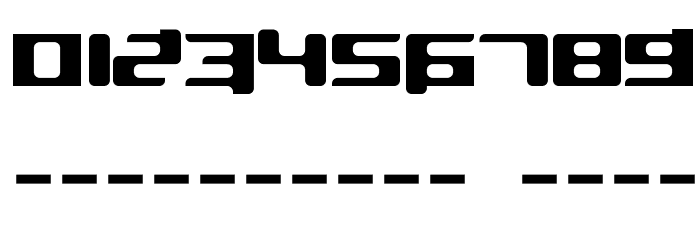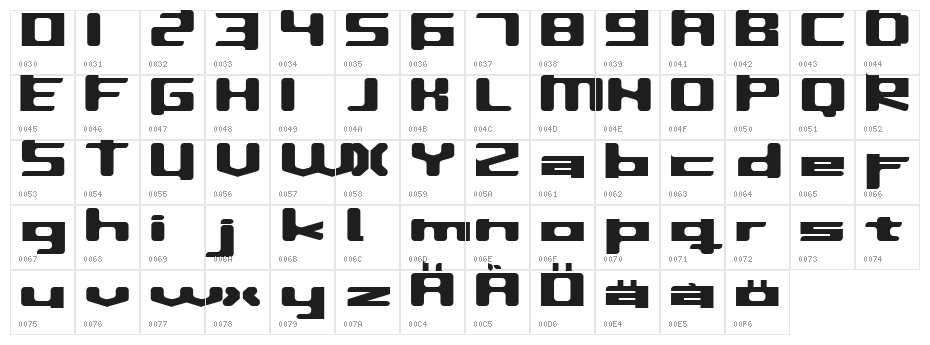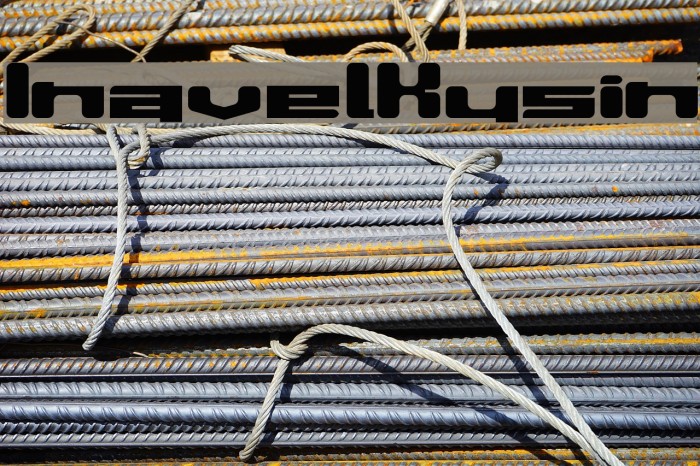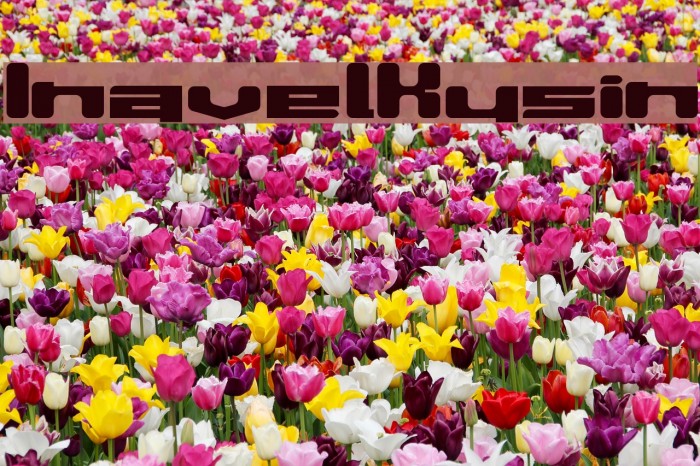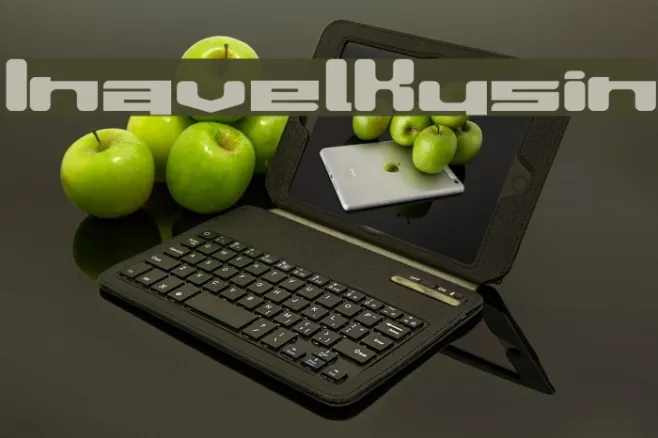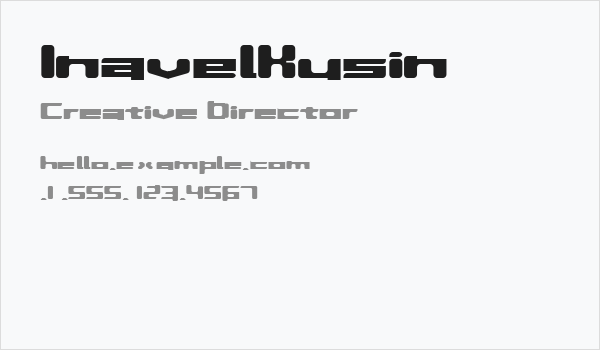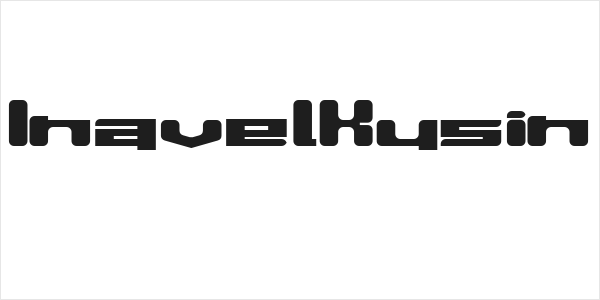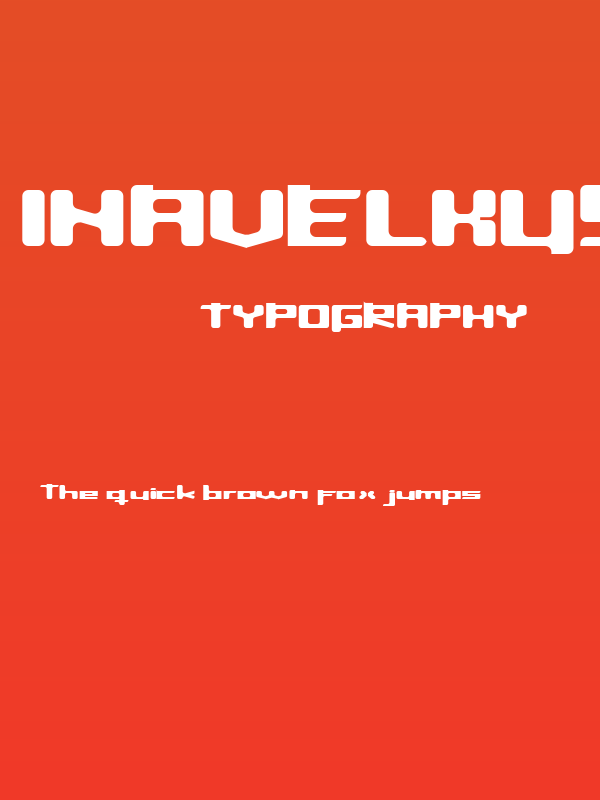
InavelKusin Font
InavelKusin Description
This font features a bold and futuristic design with geometric shapes and sharp edges. The characters are uniformly wide, giving a monospaced appearance, yet they maintain a unique style with cut-out sections that add a modern and tech-inspired look. The uppercase and lowercase letters share a consistent design language, while the numbers and special characters complement the overall aesthetic. The font's distinct style makes it suitable for digital and print media where a strong, impactful presence is desired.
| Proposed Projects | Ideal for technology branding, video game titles, sci-fi book covers, and modern digital interfaces. |